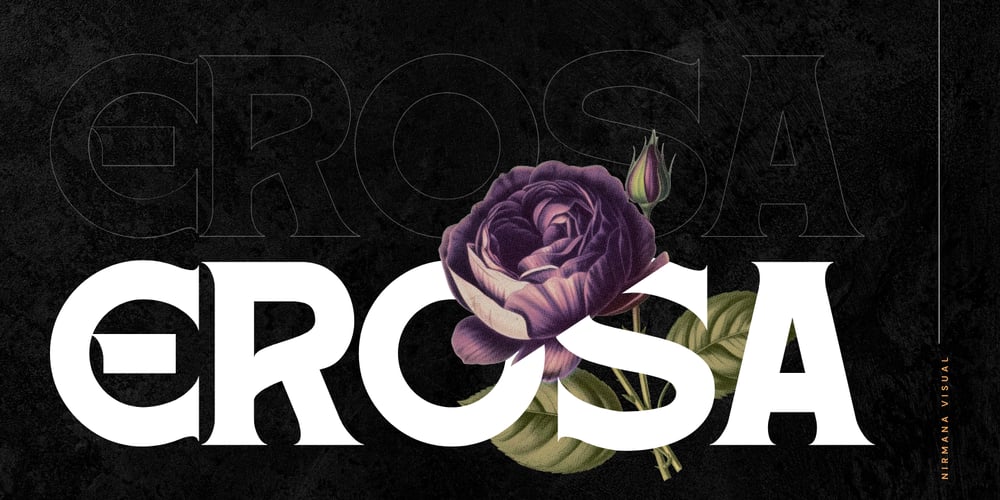
Retro Erosa Font Family was designed by Sigit Dwipa and published by Nirmana Visual. Retro Erosa contains 1 styles and family package options. Introducing our luxurious serif font, an epitome of elegance and sophistication. This font is masterfully designed to reflect the essence of high-end style, featuring meticulously crafted ligatures that enhance its refined character.Ideal for luxury branding, upscale editorials, and elegant invitations, this serif font transforms any project into a masterpiece. Its seamless blend of classical design and modern functionality makes it perfect for both digital and print applications, delivering a consistent and impactful presence across all mediums.Immerse yourself in the world of sophistication with our stunning serif font. Let its graceful curves and elegant ligatures elevate your designs, creating an unparalleled sense of luxury and refinement.